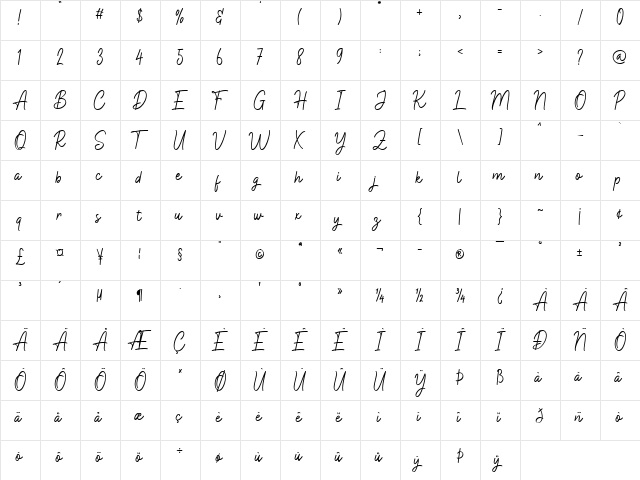
Hamilton Signature Regular
| Designer | (MJB Letters). 2020. (Muhammad Mujibulloh) |
Design Context for Hamilton Signature Typeface
Hamilton Signature is a composed and adaptable typeface that performs quietly and consistently across a wide range of design contexts.